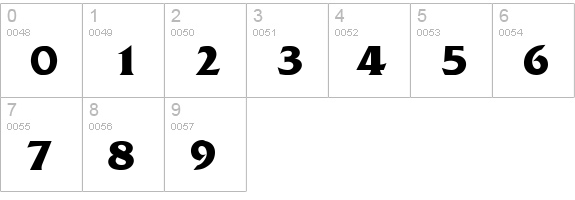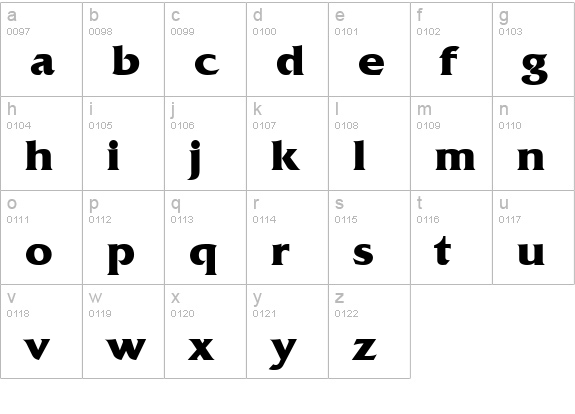
Anticlaire Display SSi Font Details
Anticlaire Display SSi font is a stunning and elegant typeface that exudes sophistication and charm. With its stylish and unique design, this font is perfect for adding a touch of class to any project or design. The sleek lines and sophisticated curves of Anticlaire Display SSi font make it stand out and catch the eye of any viewer. The best part about Anticlaire Display SSi font is that it is completely free to download. Yes, you read that right - you can get your hands on this exquisite font without spending a dime. Simply head over to FontsMarket.com and grab your copy of Anticlaire Display SSi font today. Whether you're working on a branding project, creating eye-catching posters, or designing a stylish website, Anticlaire Display SSi font is sure to elevate your work to the next level. Don't miss out on this amazing opportunity to enhance your designs with this beautiful and free font. Download Anticlaire Display SSi font now and let your creativity shine!